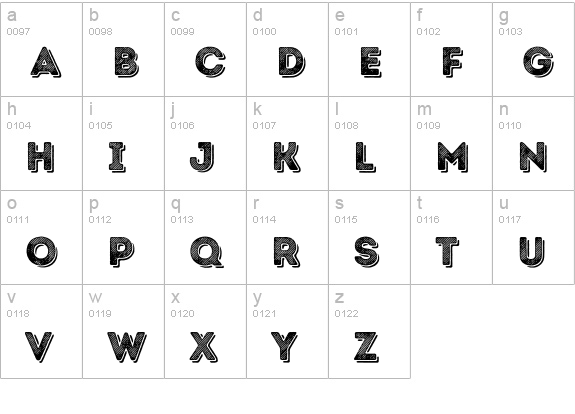
Intro Rust L Base Shade Font Details
Intro Rust L Base Shade font is a unique and versatile typeface that combines modern design with a touch of vintage charm. Its bold and striking appearance makes it perfect for branding, packaging, posters, and more. The free version of Intro Rust L Base Shade font is available for download at FontsMarket.com, allowing you to add a distinctive and stylish touch to your projects without any cost. With its eye-catching aesthetic and wide range of characters, Intro Rust L Base Shade font is sure to make a statement in any design you choose.